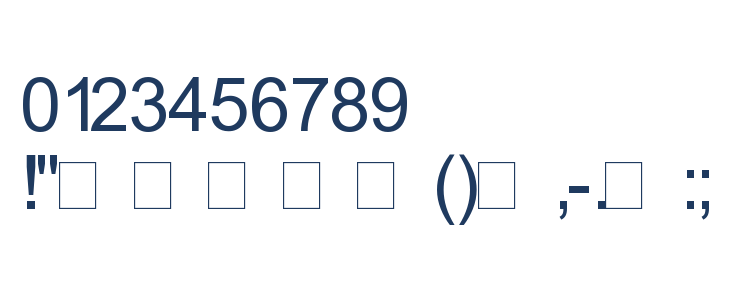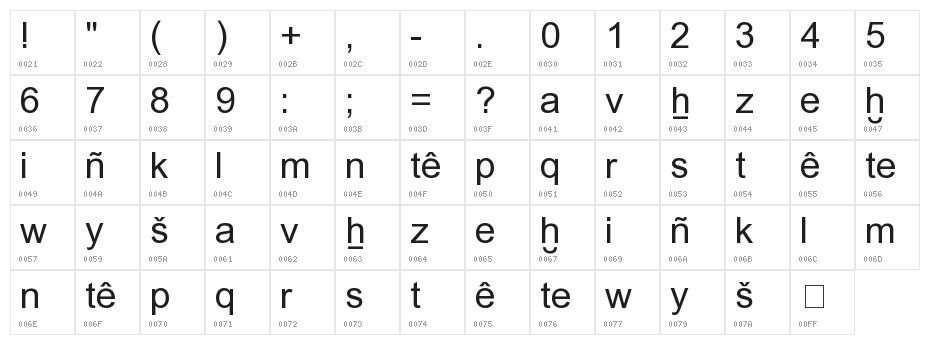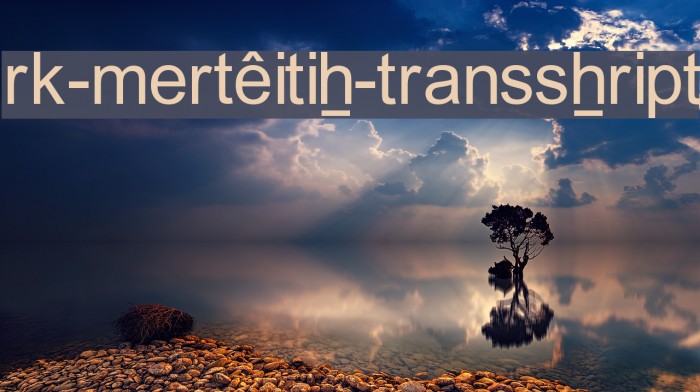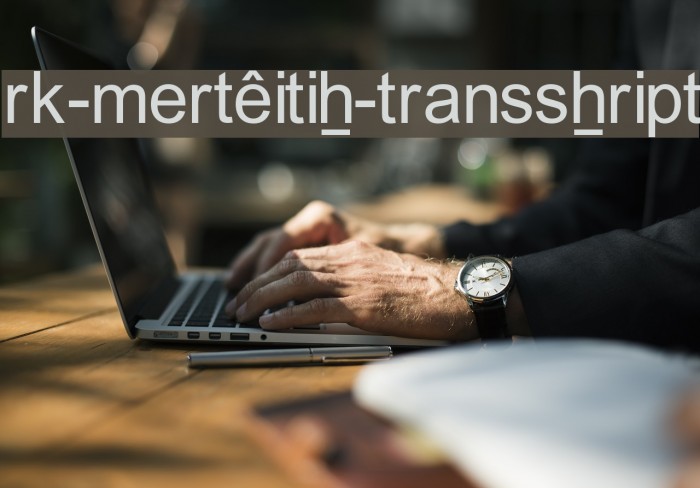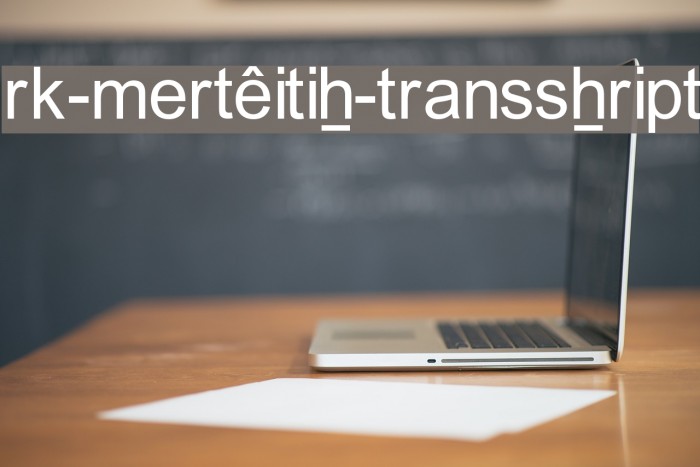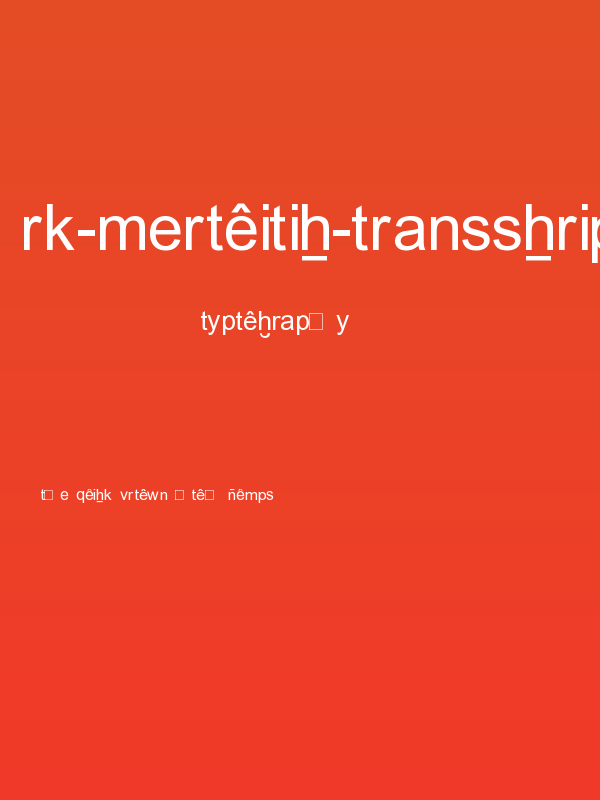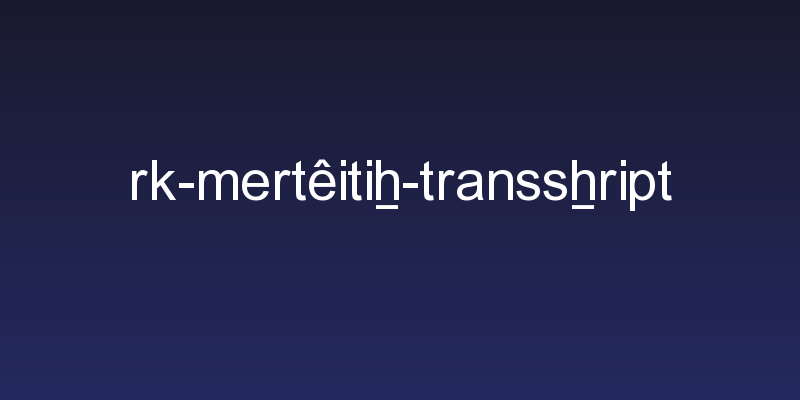
RK-Meroitic-Transscript Font
RK-Meroitic-Transscript Description
This font features a clean and modern sans-serif design with a focus on readability and simplicity. The characters are well-proportioned with a consistent stroke width, providing a uniform appearance across both uppercase and lowercase letters. The numerals are clear and distinct, making them suitable for various applications. Special characters are included, though some symbols appear as placeholders, indicating potential limitations in character support. The overall style is minimalistic, making it versatile for different design contexts.
| Proposed Projects | Ideal for digital interfaces, corporate branding, and editorial design due to its clarity and modern appeal. |